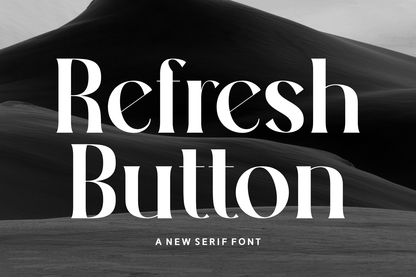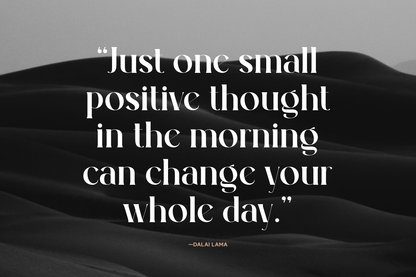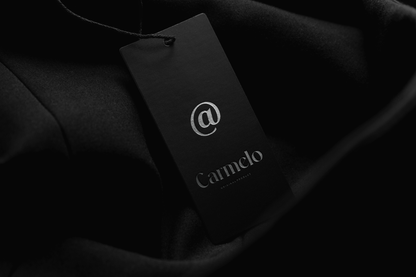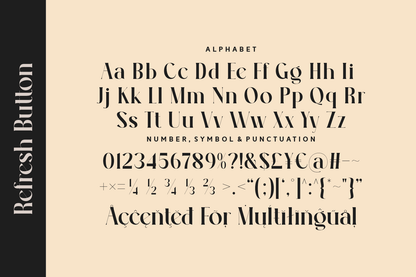
Refresh Button is a modern serif font that pairs contemporary geometry with artistic elegance. With stylish cuts and subtle curves, it strikes a perfect balance between sharp professionalism and trendy design. Ideal for modern branding, fashion campaigns, and high-impact editorials, it’s a font that feels fresh yet timeless.
Its clean structure allows for versatility, while the slight quirk in its letterforms ensures your design feels unique and elevated. Refresh Button reinvents classic serif style for a new generation of creators.